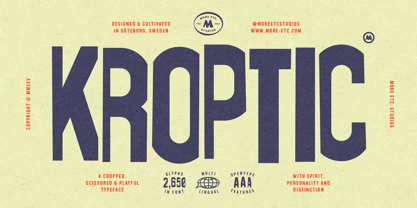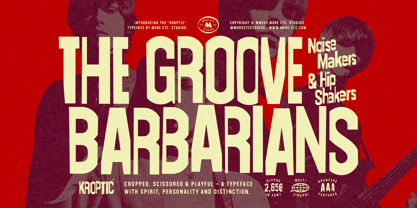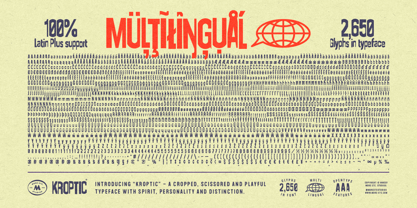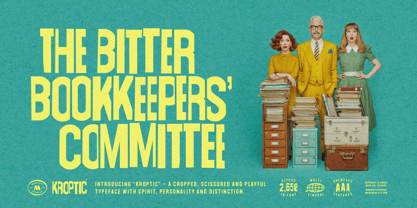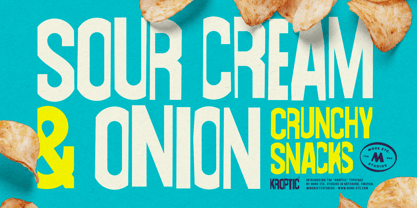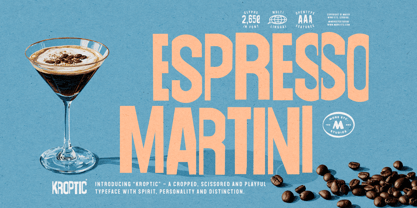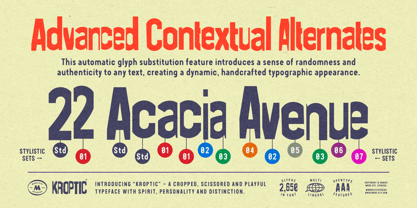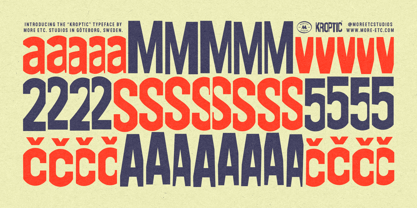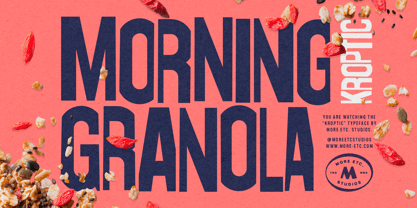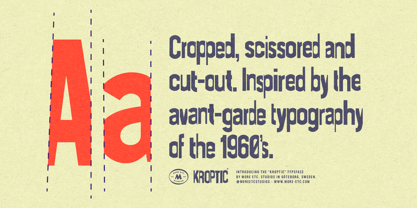
Kroptic
by More Etc
The Kroptic Font Family was designed by Robert Samsonowitz and published by More Etc. Kroptic contains 1 styles.
Kroptic is a playful display typeface inspired by the cut-out experiments of 1960’s avant-garde typography. Cropped and scissored letterforms create an energetic rhythm that feels spontaneous yet intentional, making Kroptic ideal for projects that need bold personality. What sets Kroptic apart is its advanced contextual alternates. Every letter, numeral and select symbols come in 8 unique versions. As you type in a professional design environment, Kroptic automatically swaps glyphs to avoid repetition, giving you text that feels natural, varied and alive – as if it were cut out by hand. The character set includes over 2,600 glyphs with full Latin Plus support, covering more than 200 Latin-based languages worldwide. This makes Kroptic not only expressive and playful but also versatile and dependable for global use. In short: Playful display typeface inspired by 1960’s cut-out avant-garde design Over 2,600 glyphs in total Every letter, numeral and select symbols come in 8 unique versions Advanced Contextual Alternates ensure variation and a natural rhythm Full Latin Plus support covering 200+ languages Bold, energetic and expressive – perfect for headlines, branding and posters
Designers: Robert Samsonowitz
Publisher: More Etc
Foundry: More Etc
Design Owner: More Etc